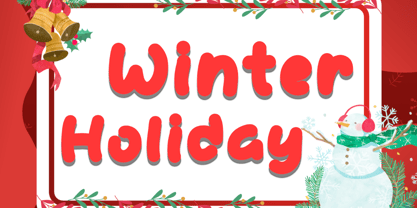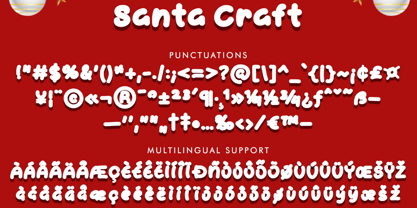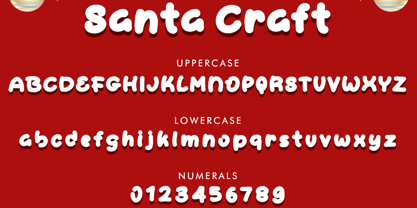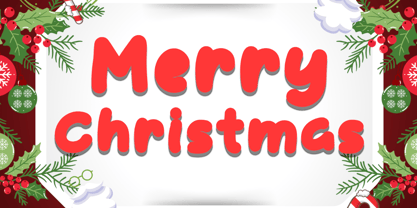
Santa Craft
by Yoga Letter
The Santa Craft Font Family was designed by Isroni Yoga Prasetya and published by Yoga Letter. Santa Craft contains 1 styles.
"Santa Craft" is a unique and cute display font. It features uppercase and lowercase letters, numerals, punctuations, and multilingual support. It's perfect for Christmas, winter, gifts, invitations, festivals, logos, stickers, Halloween, comics, branding, banners, spring, summer, Easter, t-shirts, mockups, social media, business branding, and more.